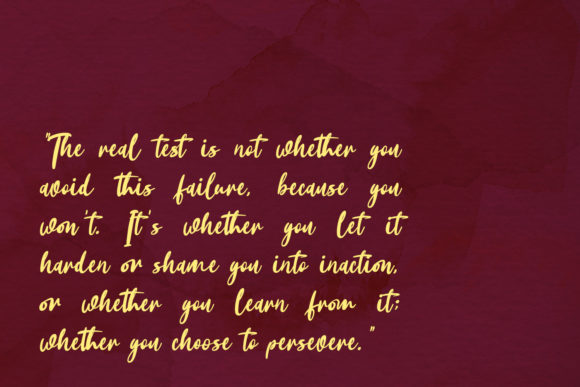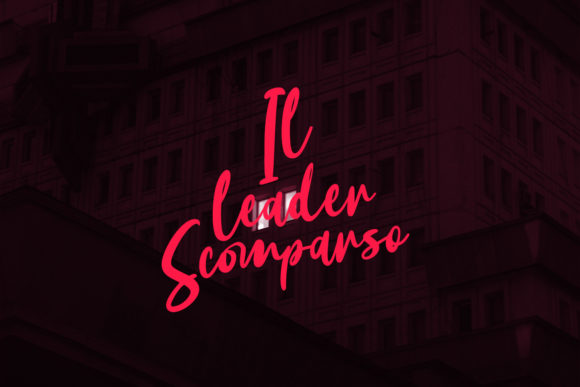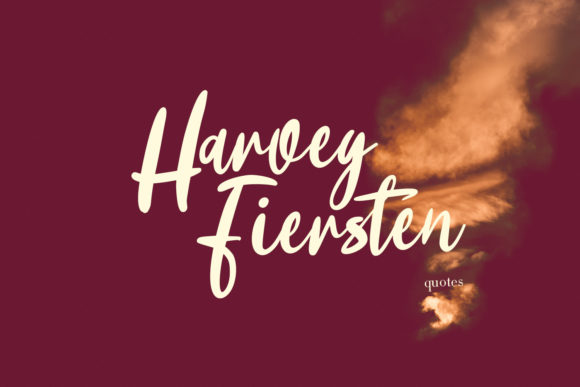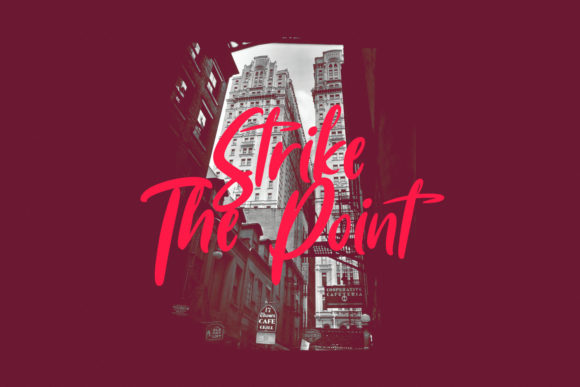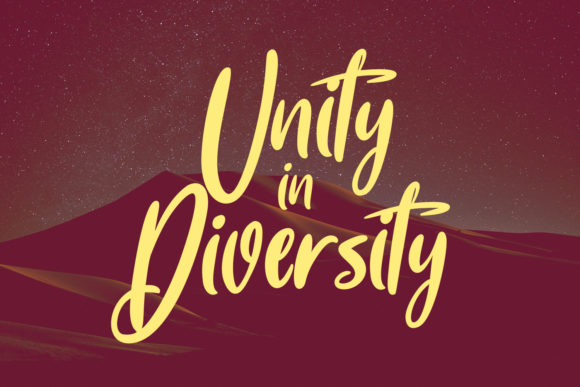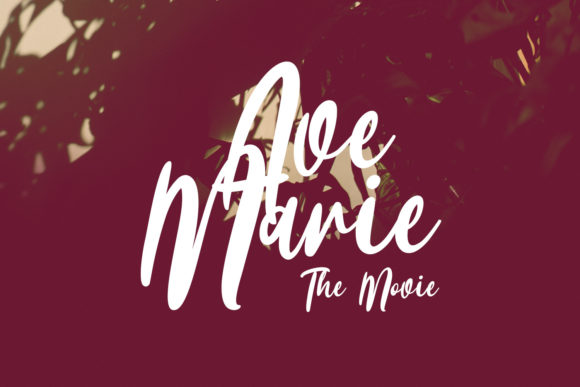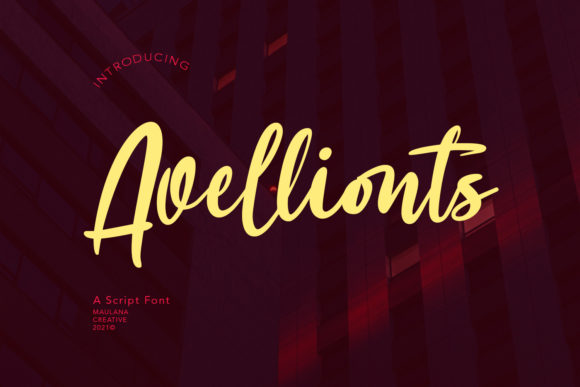
Introducing Avellionts Font: A Timeless Handwritten Masterpiece
Are you a designer or crafter looking for a font that can elevate your creative projects? Look no further than Avellionts Font, a lovely and timeless handwritten font that is sure to capture attention. With its unique and beautiful touch, Avellionts is the perfect choice for creating eye-catching logos, branding, and quotes that will make your design come alive!
The Characteristics of Avellionts Font
Avellionts Font is a handwritten font that exudes elegance and sophistication. Every letter has a distinct and beautiful touch, which sets it apart from other fonts. The font is designed to be versatile, making it suitable for a wide range of creative projects, from logos and branding to quotes and social media graphics.
Why Choose Avellionts Font?
So, why should you choose Avellionts Font for your creative projects? Here are just a few reasons:
• Unique and Beautiful Touch: Every letter in Avellionts Font has a unique and beautiful touch that will add a personal touch to your designs.
• Elegant and Sophisticated: Avellionts Font is perfect for creating elegant and sophisticated designs that will impress your audience.
• Versatile: Avellionts Font is suitable for a wide range of creative projects, from logos and branding to quotes and social media graphics.
• Easy to Read: Despite its elegant and sophisticated design, Avellionts Font is easy to read, making it perfect for body text and captions.
How to Use Avellionts Font
Avellionts Font is easy to use and can be incorporated into a variety of creative projects. Here are a few ideas to get you started:
• Logos and Branding: Use Avellionts Font to create eye-catching logos and branding materials that will set your business apart.
• Quotes and Social Media Graphics: Avellionts Font is perfect for creating inspirational quotes and social media graphics that will engage your audience.
• Invitations and Stationery: Use Avellionts Font to create beautiful invitations and stationery that will add a personal touch to your correspondence.
Tips for Getting the Most Out of Avellionts Font
Here are a few tips for getting the most out of Avellionts Font:
• Experiment with Different Sizes and Colors: Avellionts Font looks great in a variety of sizes and colors, so don’t be afraid to experiment and find the combination that works best for your design.
• Pair with Other Fonts: Avellionts Font pairs well with other fonts, so try combining it with a bold font for headings and a clean font for body text.
• Use it for Display Text: Avellionts Font is perfect for display text, such as headings and titles, where you want to make a bold statement.
Avellionts Font is a timeless handwritten font that is sure to elevate your creative projects. With its unique and beautiful touch, Avellionts is the perfect choice for creating eye-catching logos, branding, and quotes that will make your design come alive! Whether you’re a designer or crafter, Avellionts Font is a must-have font that will add a personal touch to your designs.
• Is Avellionts Font easy to read?: Yes, Avellionts Font is designed to be easy to read, making it perfect for body text and captions.